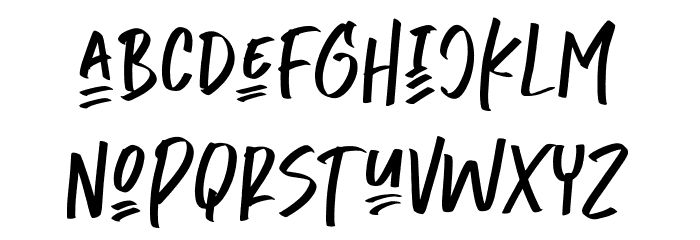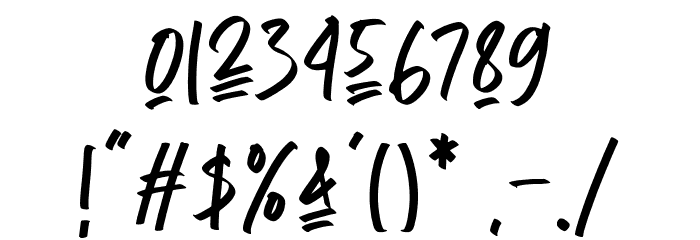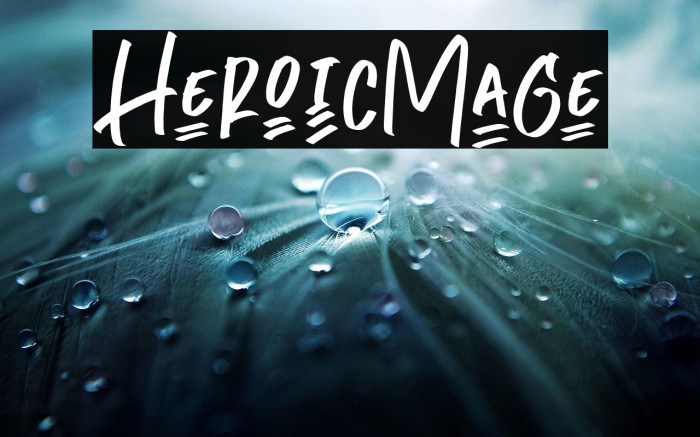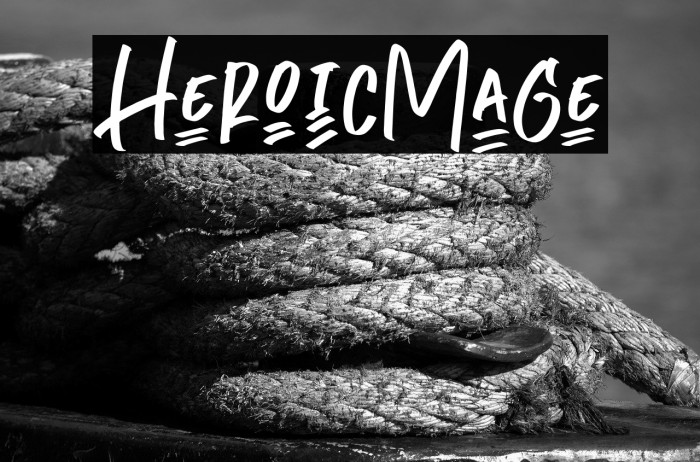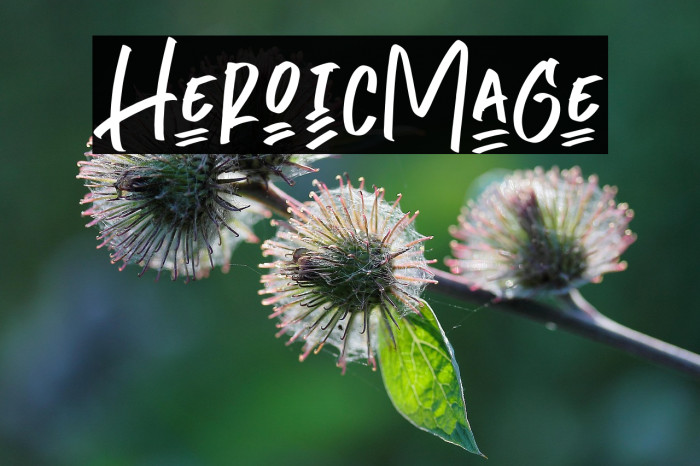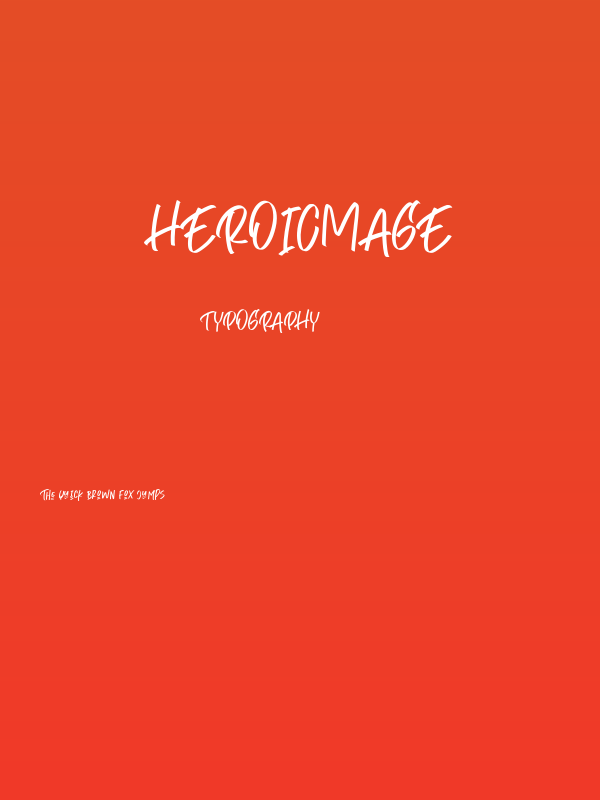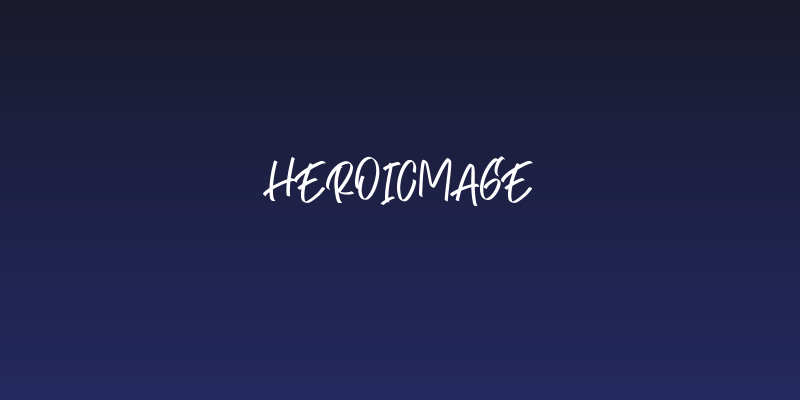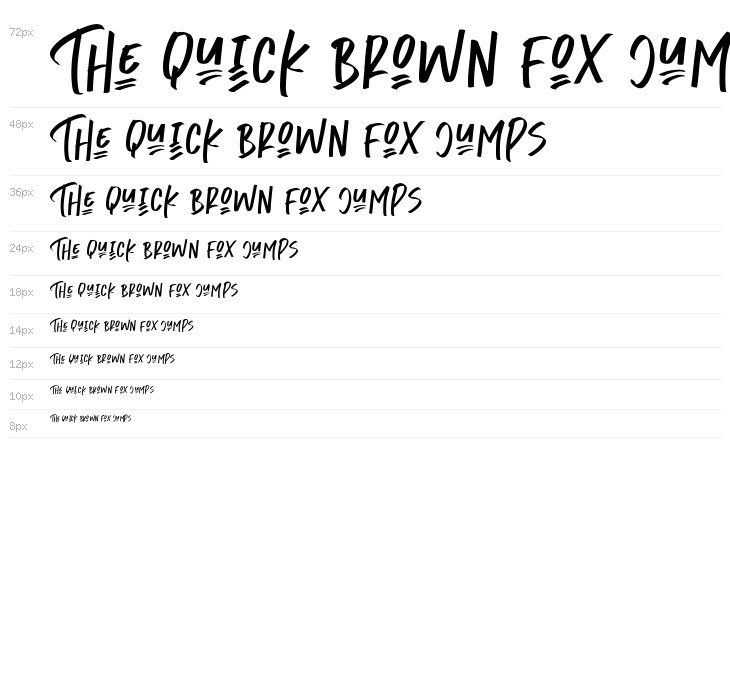
HeroicMage Font
This font exudes a dynamic and energetic style, characterized by its bold and expressive strokes. The letters are crafted with a handwritten flair, giving them a personal and informal touch. The uppercase and lowercase characters maintain a consistent flow, while the numbers and special characters complement the overall aesthetic. The strokes are thick and slightly irregular, adding to the font's lively and spontaneous appearance. This font is perfect for projects that require a touch of creativity and individuality, making it suitable for artistic and modern designs.
A bold, expressive handwritten font with dynamic strokes.
- Proposed Projects: Ideal for branding, posters, social media graphics, and creative projects that need a personal touch.
- Overall Style: Modern, Artistic